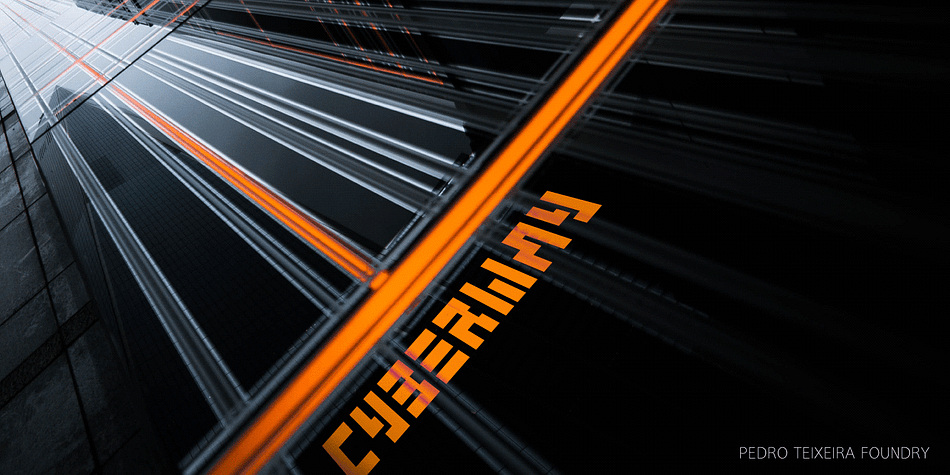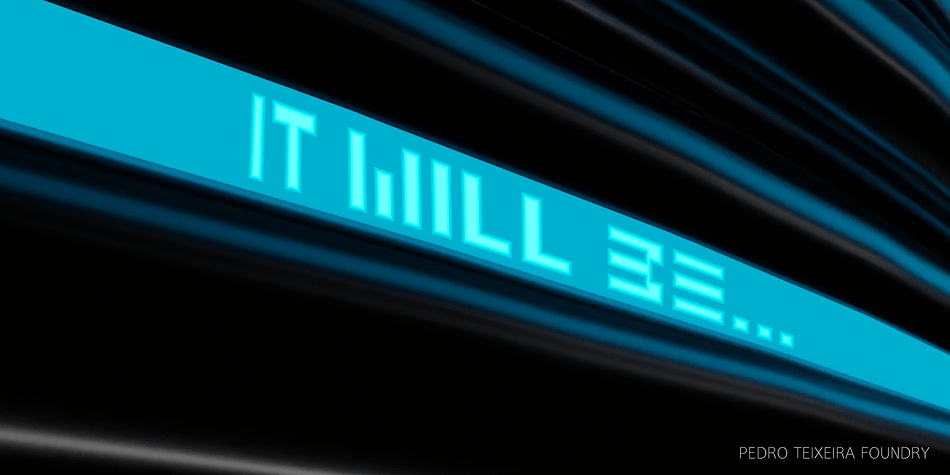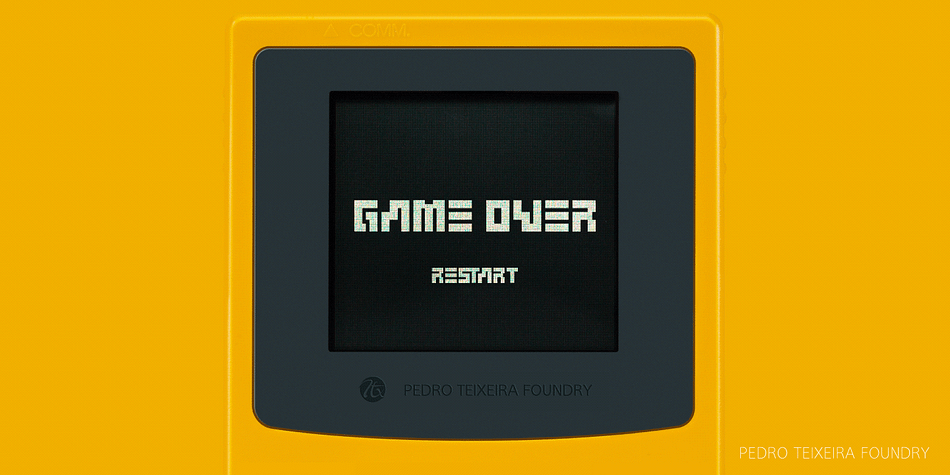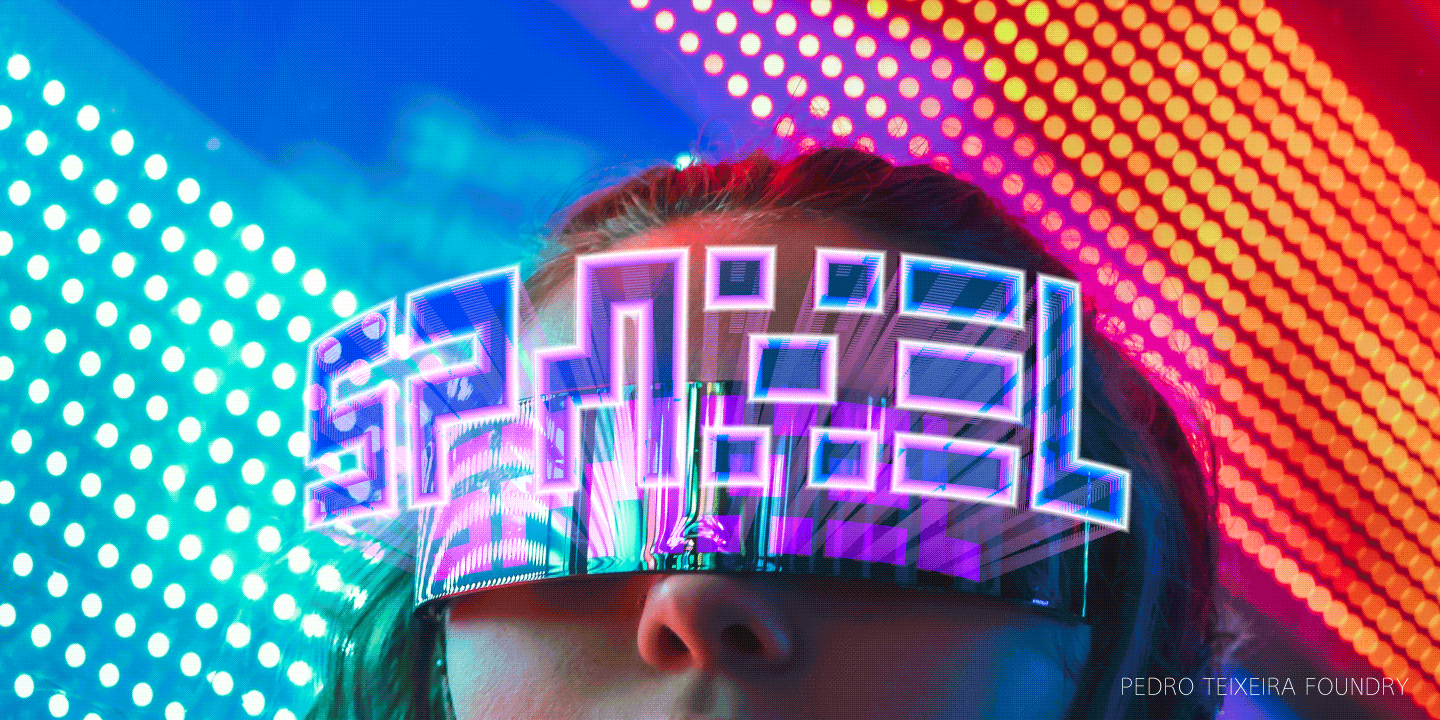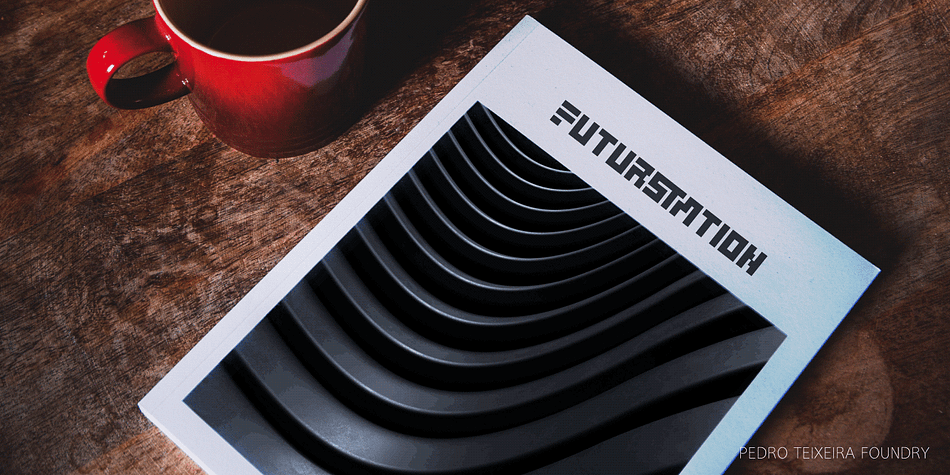
SPAXEL
Designed by Pedro Teixeira, Spaxel is a pixel font family published by Pedro Teixeira.
Retro futuristic design. Inspired in old concept futuristic designs and in pixels. This display font is great for logo design, posters and to make a “look forward” statement in your designs.